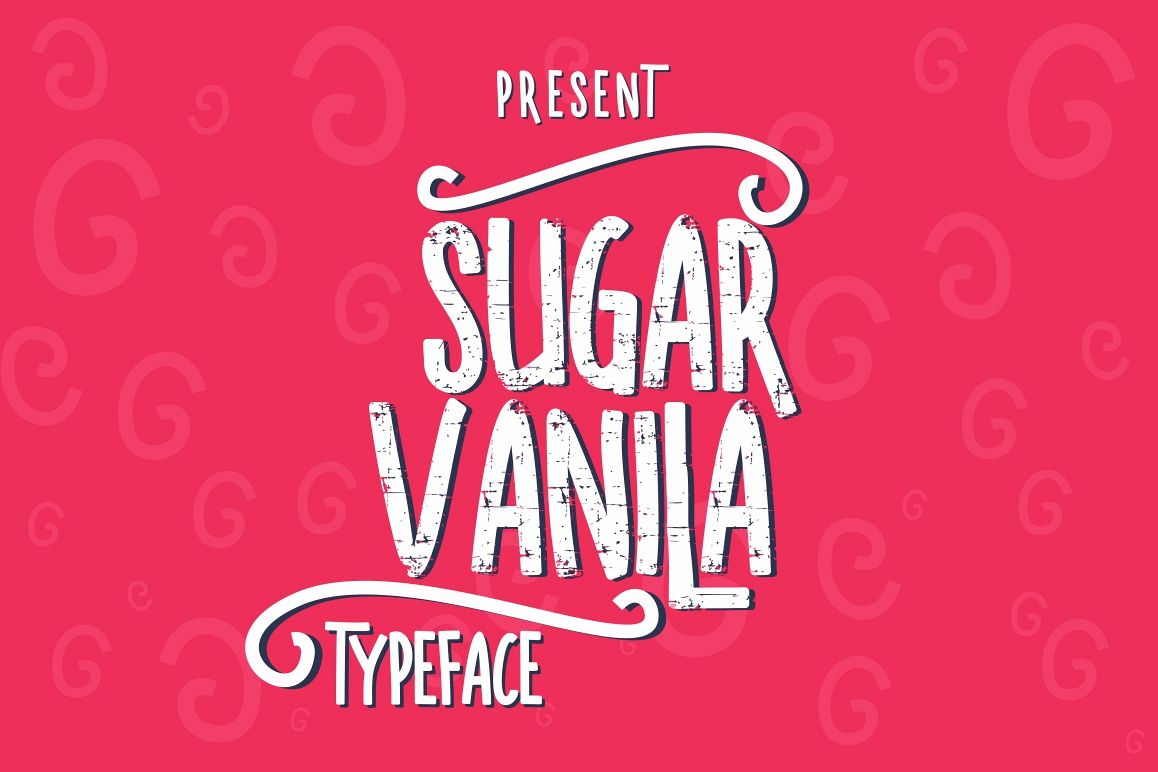
SUGAR VANILA FAMILY
New Present "SUGAR VANILA FAMILY"
"SUGAR VANILA FAMILY" is a smooth hand marker, modern style marker , which was created to meet the needs of your next design project.
Comes with upper and lowercase characters, numerals.
Standard Character.